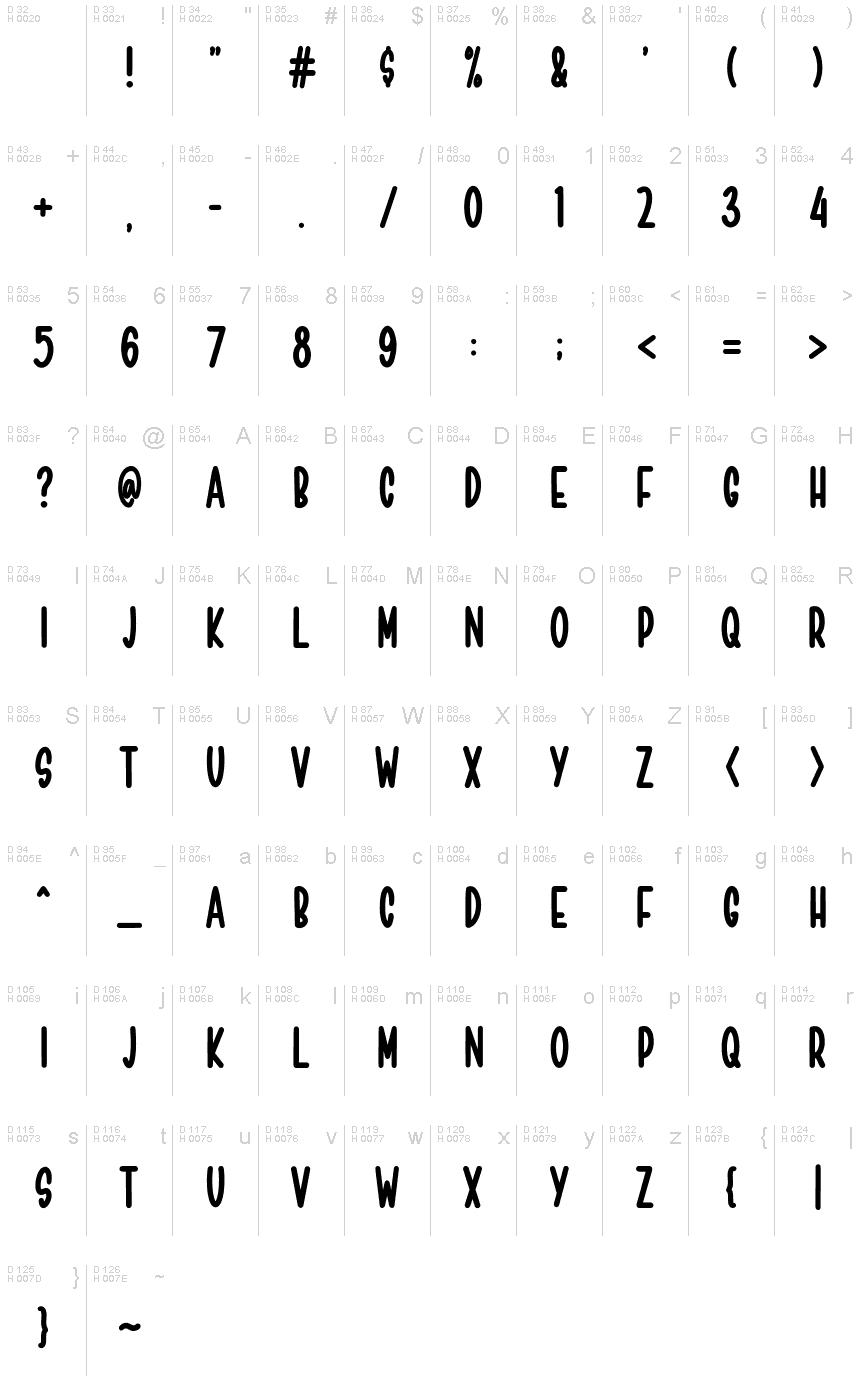
Straight Bough
Straight Bough, designed by Letterayu, exudes a blend of casual elegance and modern flair. This handwritten font boasts a semi-bold weight that adds a touch of assertiveness to its friendly and approachable character. Its organic curves and flowing lines mimic the natural variation of human handwriting, making it an excellent choice for designs that require a personal touch.
The aesthetic appeal of Straight Bough lies in its versatile style; it strikes a perfect balance between readability and stylistic charm. Whether it's for branding, invitation cards, or social media graphics, this font has the potential to add an authentic handcrafted feel to various creative projects.
Its suitability extends to both print and digital realms where a touch of humanity is desired within the design. Straight Bough is more than just a typeface—it's an artistic tool that can help convey messages with warmth and originality.